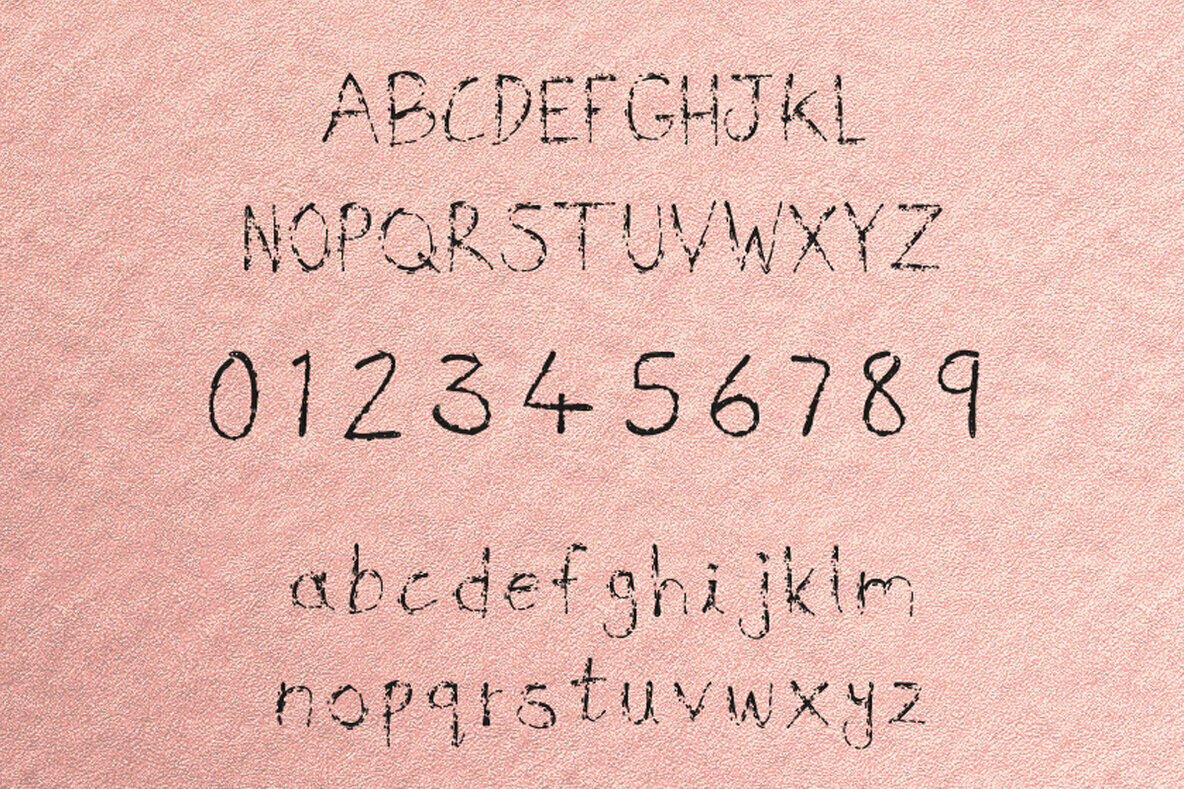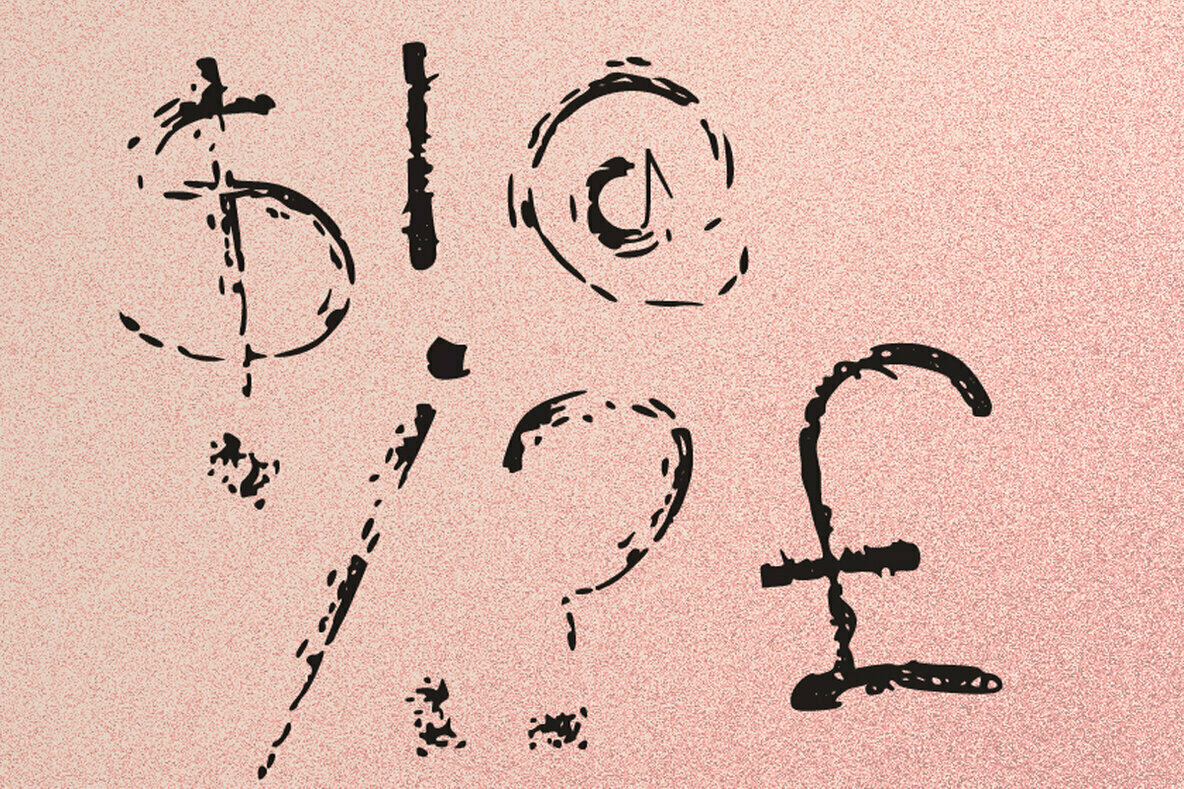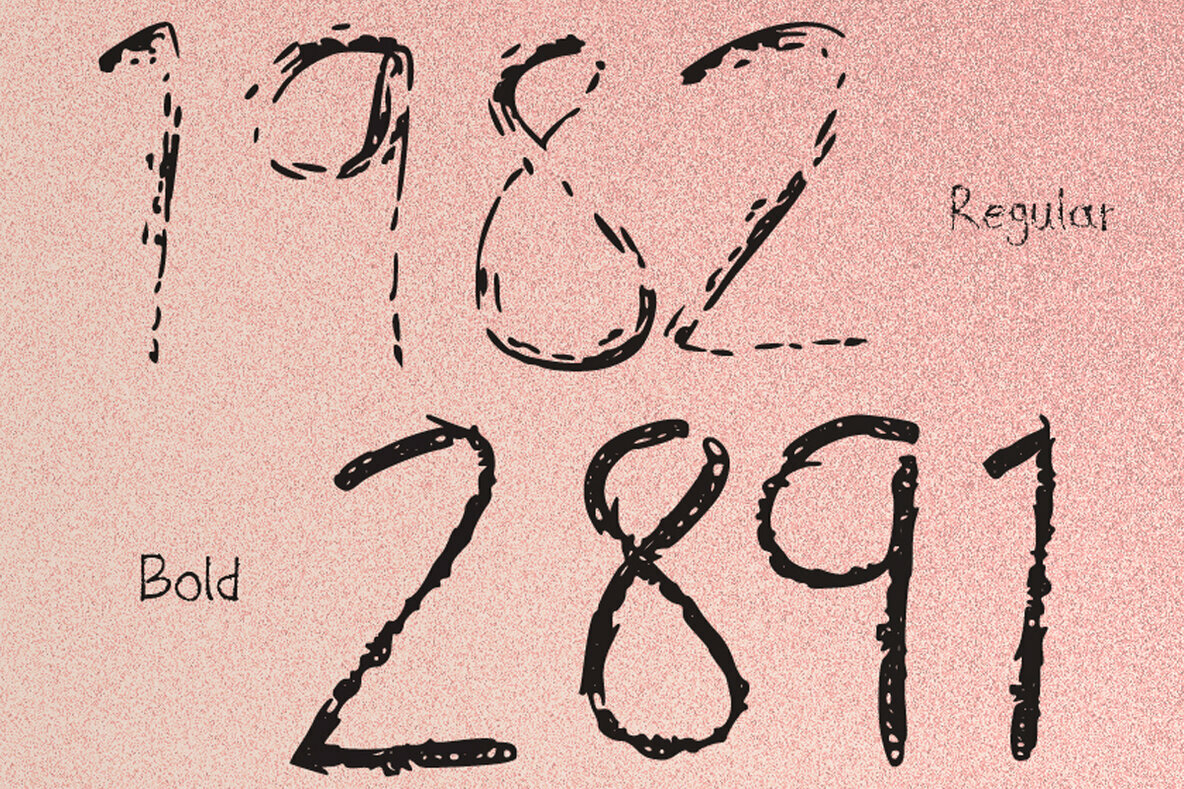
No More Ink Font
No More Ink embodies fun, quirkiness and authenticity. This enchanting display font will turn any creative idea into a true standout. Get creative with its childlike playfulness, and use it to brighten up any kids and school project!